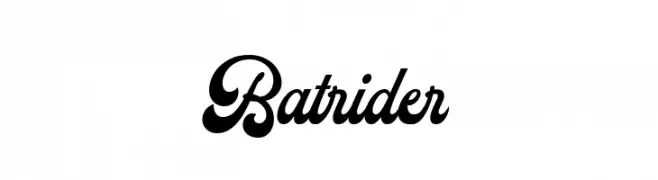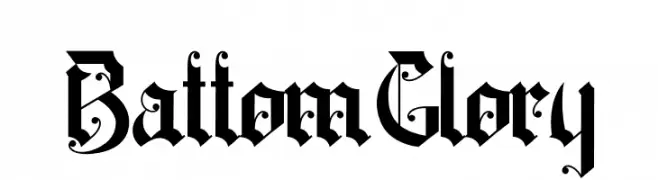
A bold, textured script font with a vintage, handcrafted feel.
A bold, flowing script font with elegant curves and high contrast.
A bold, dynamic script font with fluid strokes and a modern, artistic style.
A bold, decorative Blackletter font with intricate details and gothic flair.
A cursive font with elegant, sweeping strokes and artistic flair.
A playful handwritten font with fluid, flowing letterforms.
A flowing, cursive script font with elegant loops and swashes.
A dynamic, elegant handwritten script with fluid, sweeping strokes.
An elegant, flowing script font with calligraphic influences and decorative flourishes.
A bold, brush-style handwritten font with dynamic strokes and a lively appearance.